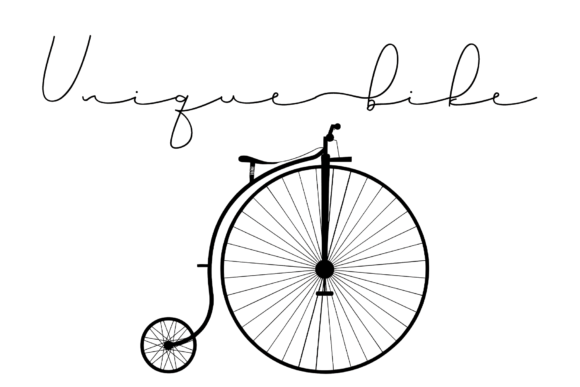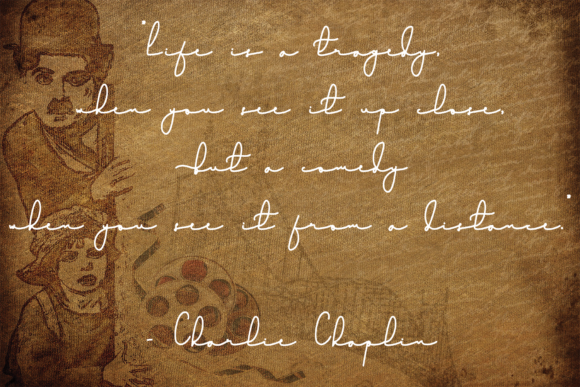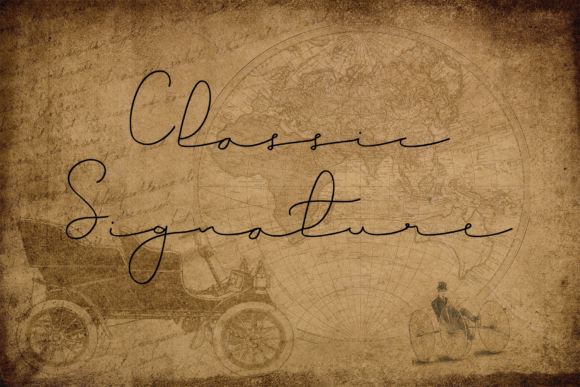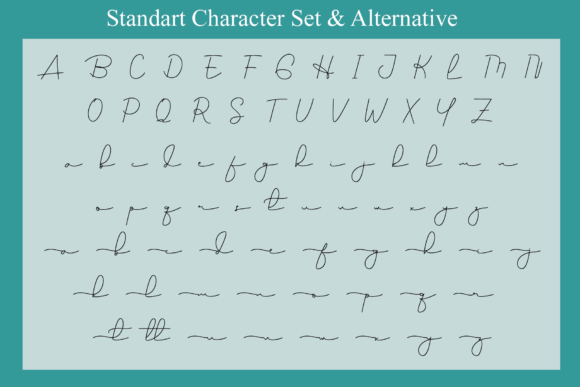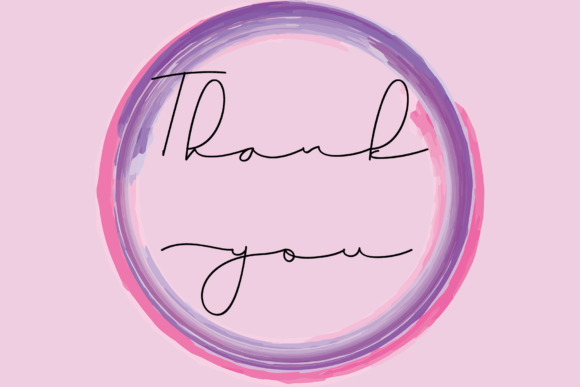
Sweet Alice Font
About Sweet Alice Font
Sweet Alice is a stylish, cursive, and thin script font that brings a touch of elegance and sophistication to your designs. With its neat craftsmanship and highly detailed letterforms, this font is a valuable asset to your font library, capable of enhancing any creation, regardless of the topic.
The stylish and thin strokes of Sweet Alice add a sense of grace and delicacy to your typography. Its cursive style brings a flowing and elegant look, making it suitable for various design projects. Whether you’re working on branding materials, wedding invitations, packaging, posters, or any other creative endeavor, this font will elevate your designs and give them a refined and polished appearance.
The careful craftsmanship and attention to detail in Sweet Alice ensure a visually pleasing and harmonious typography. Each curve and stroke is meticulously designed, resulting in a well-balanced and visually appealing font. This level of precision makes Sweet Alice a reliable choice for enhancing the visual appeal of your creations.
No matter the topic or purpose of your design, Sweet Alice adds a touch of sophistication and charm. Its stylish and highly detailed nature brings a sense of style to your projects, making them visually captivating and memorable.